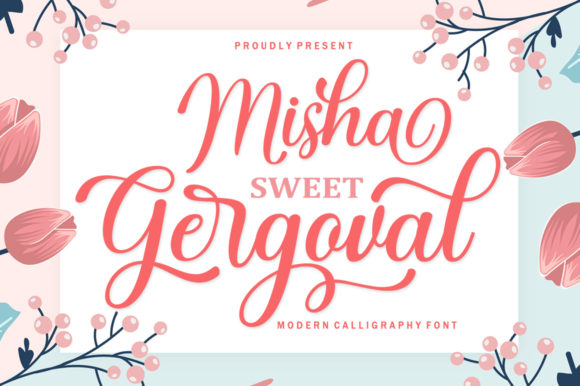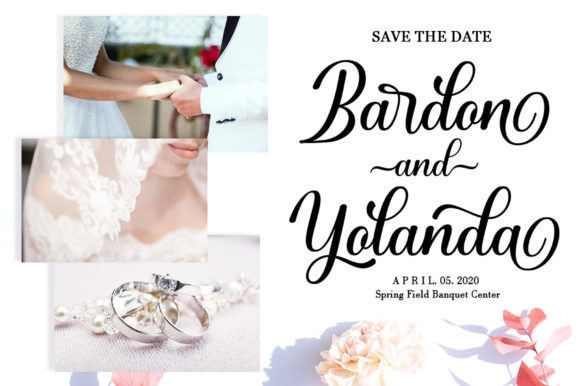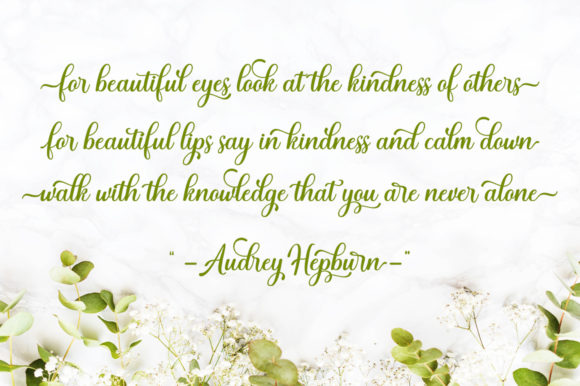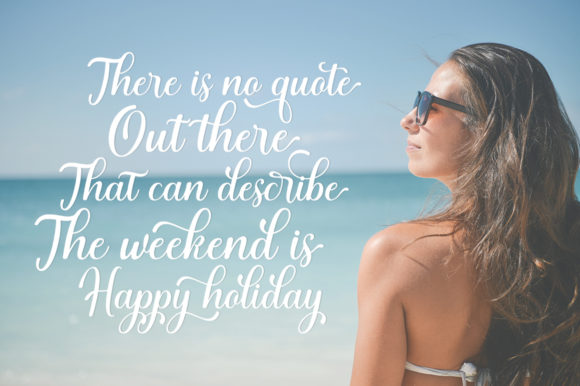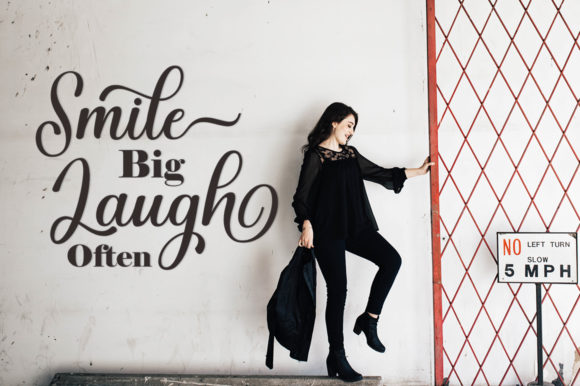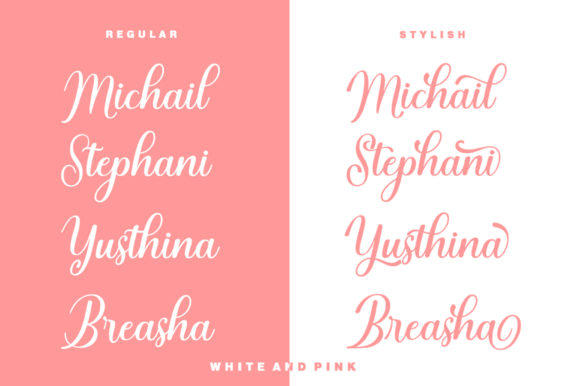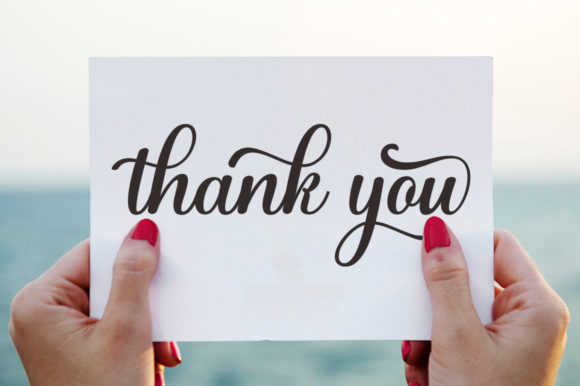
Misha Gergoval Font
About Misha Gergoval Font
Misha Gergoval is a magical script font carefully created with a touch of elegance. This is a beautiful combination of timeless elegance and authentic calligraphy. It features an incredibly classic style, while still keeping a friendly feel. Misha Gergoval is the perfect font for making original and outstanding designs. This font is PUA encoded which means you can access all of the amazing glyphs and swashes with ease! It also features a wealth of special features including alternate glyphs and ligatures.